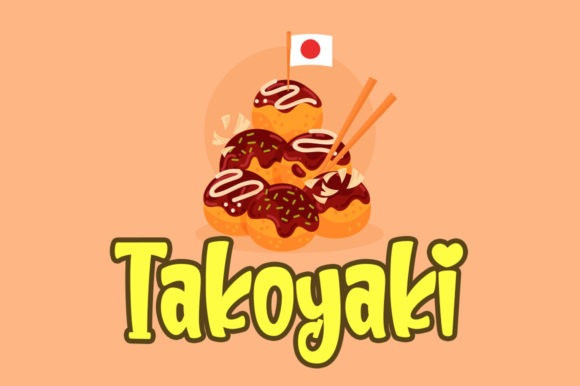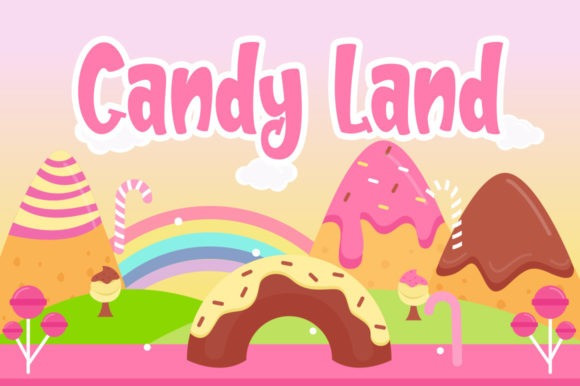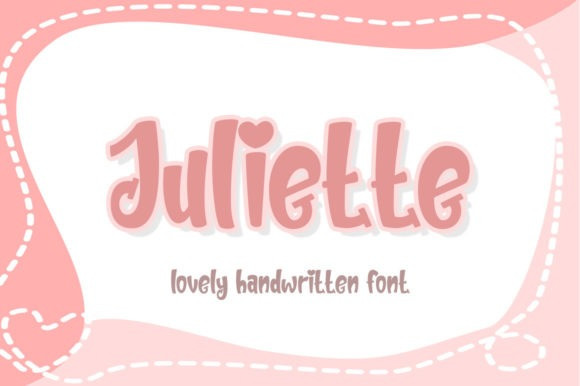
Juliette Typeface
Juliette Typeface, is a cool, trendy and bold display font. Whether you’re looking for fonts for cartoon titles or calligraphy scripts for DIY projects, this font will turn any creative idea into a true piece of art!